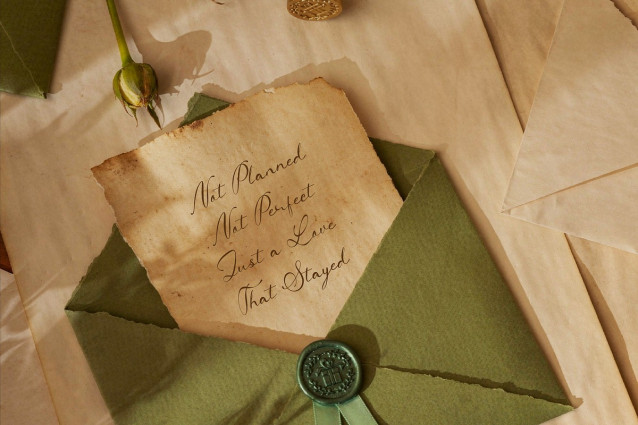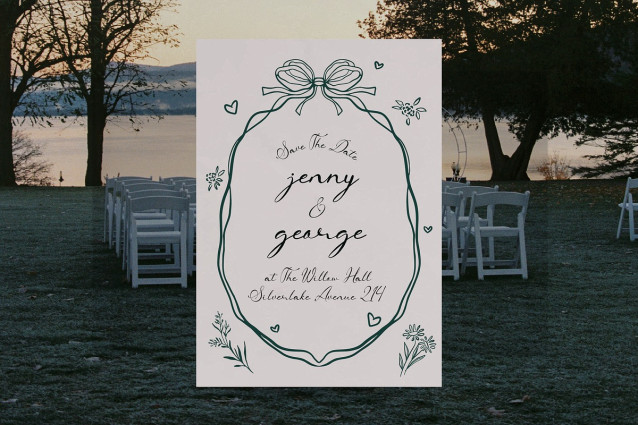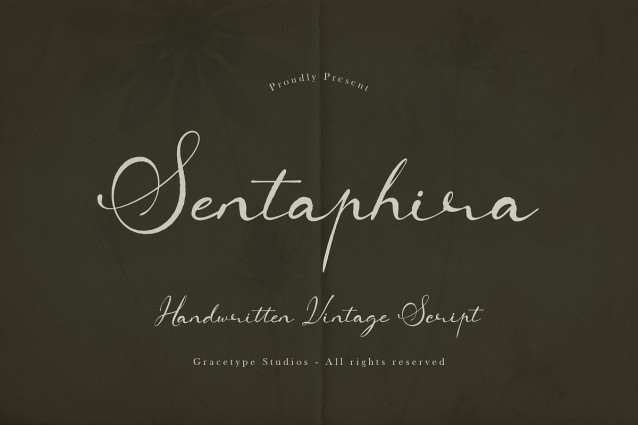
Sentaphira Script Font
Sentaphira Script Font | Handwritten Vintage Script, from Gracetypestudio, suitable for any projects such as: logos, branding projects, homeware designs, product packaging, mugs, quotes, posters, shopping bags, t-shirts, book covers, name card, invitation cards, greeting cards, label, photography, watermark, special events, and all your other lovely projects that need a Script taste.